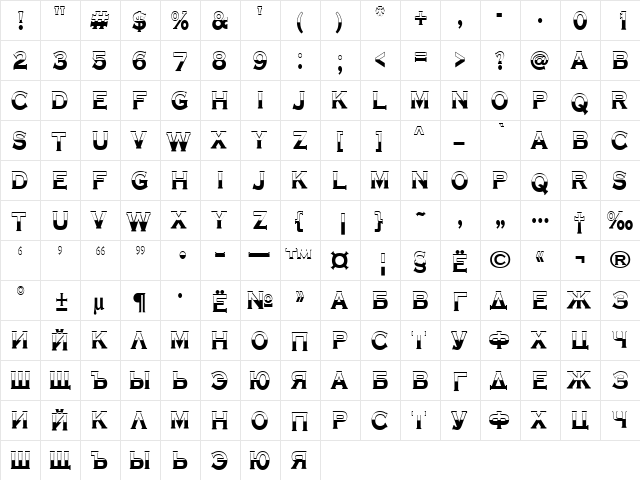
a_CopperGothTitulB&W Bold
Design Context for a_CopperGothTitulB&W Typeface
a_CopperGothTitulB&W offers clean, dependable letterforms without strong stylistic allegiance, making it a practical choice for designers who need flexibility. Its bold stroke weight gives it real presence on the page.